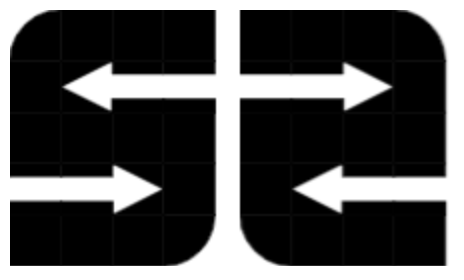
Would these work?
(For 2, just change the bottom left quarter circle on the Z to a block.)
You can look at this font by the great kassymkulov (aka architaraz) in case it can help you.
@elmo I made this font completely based on "kd spaceband"!